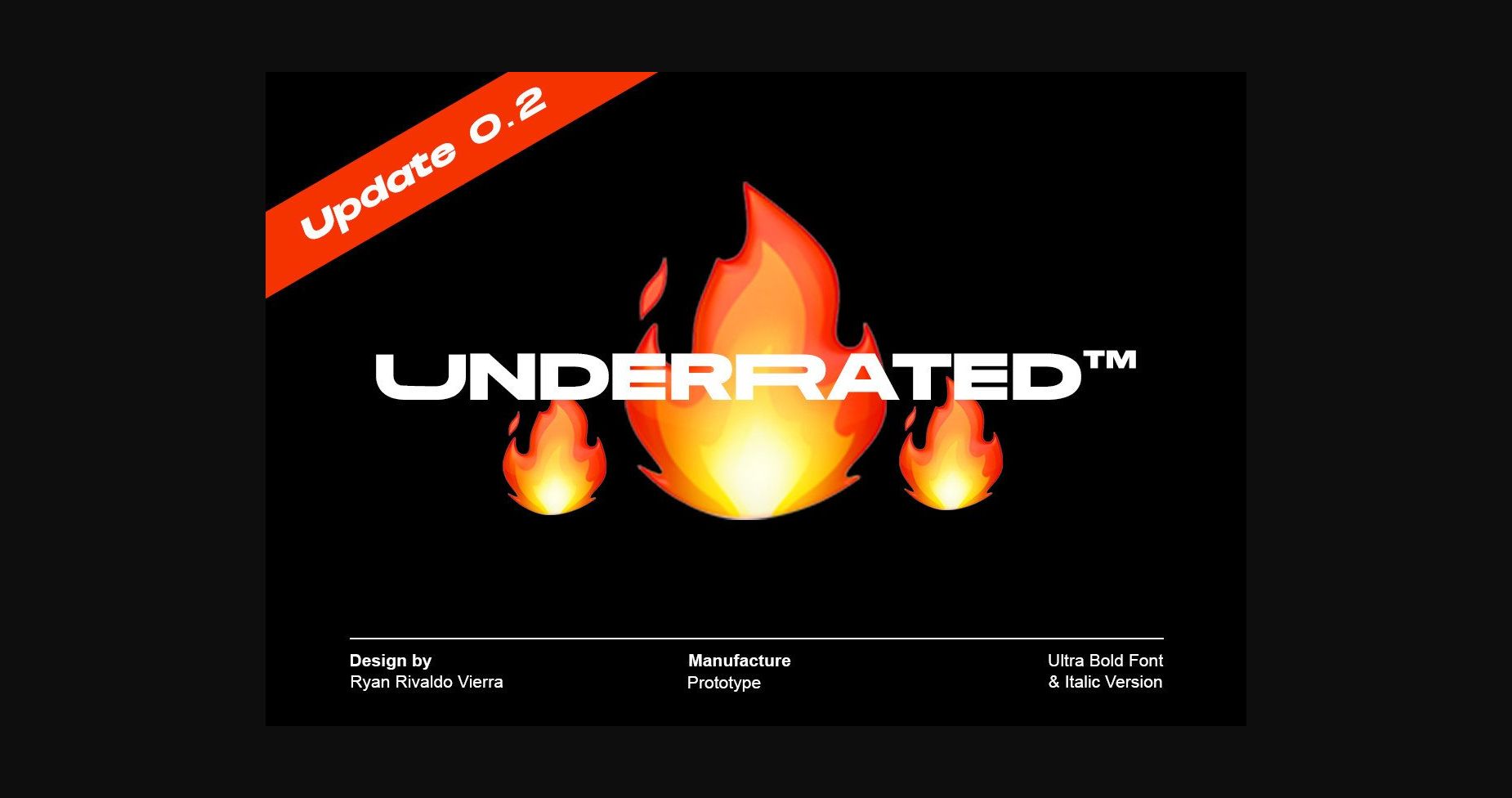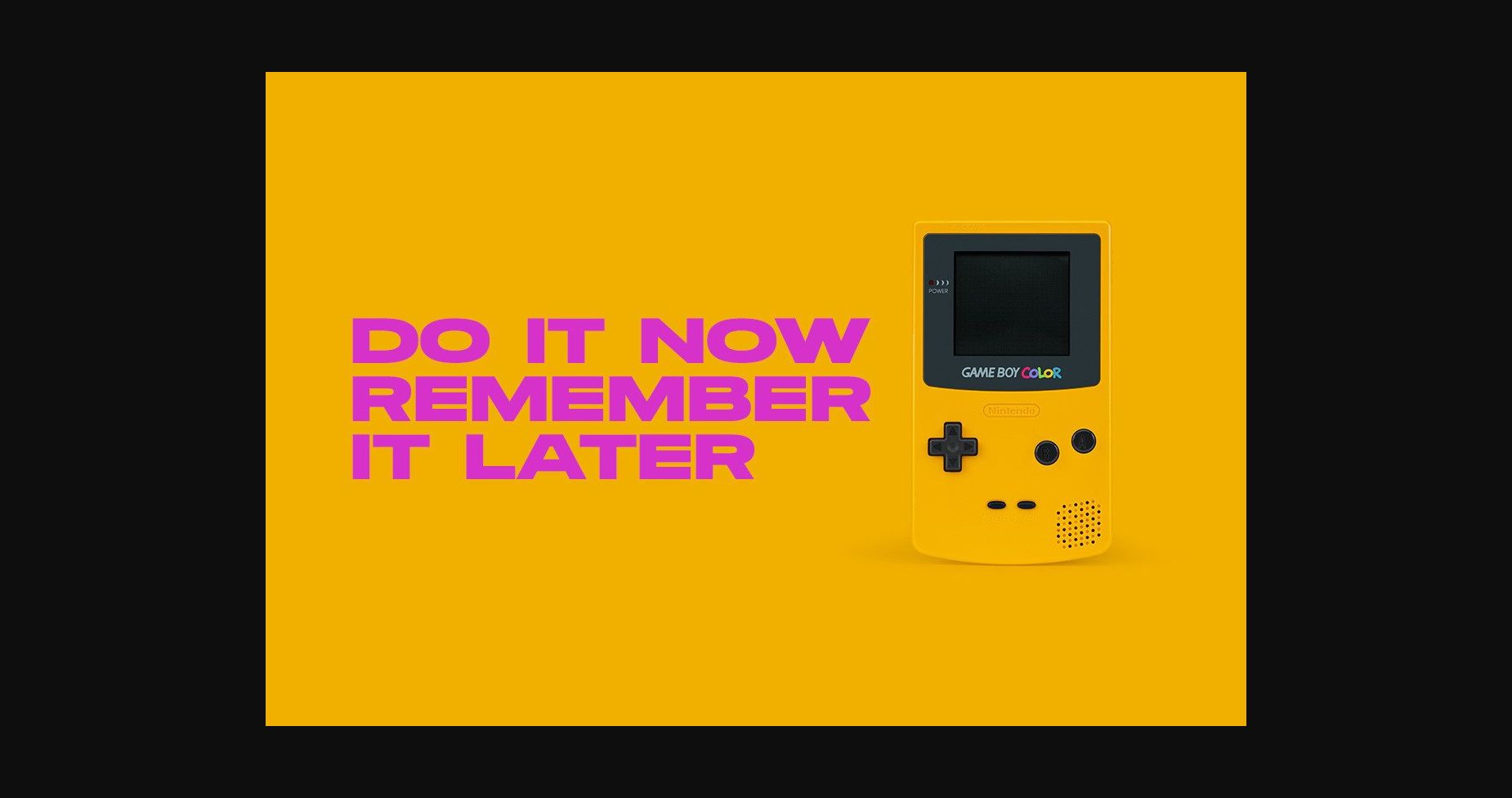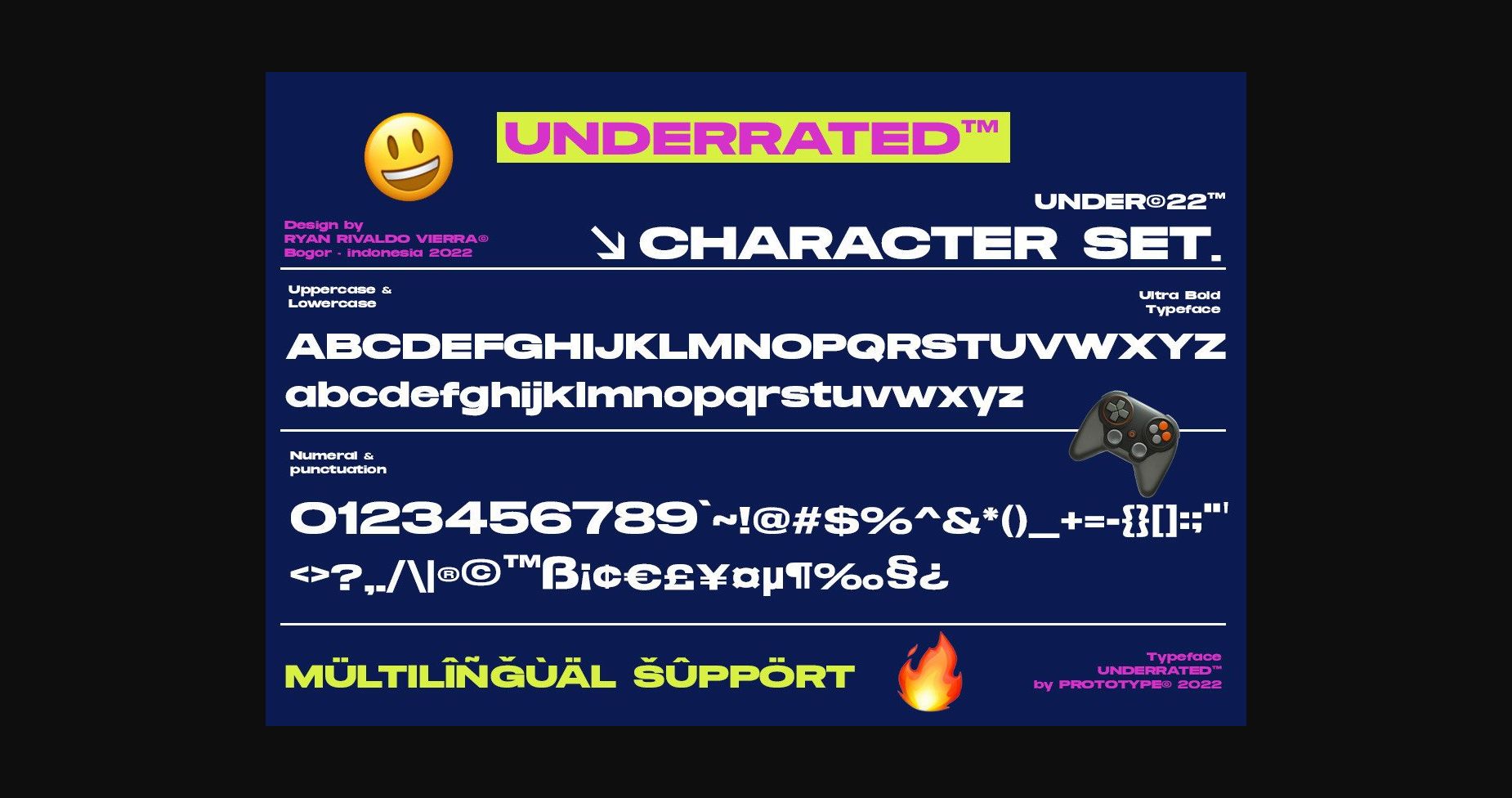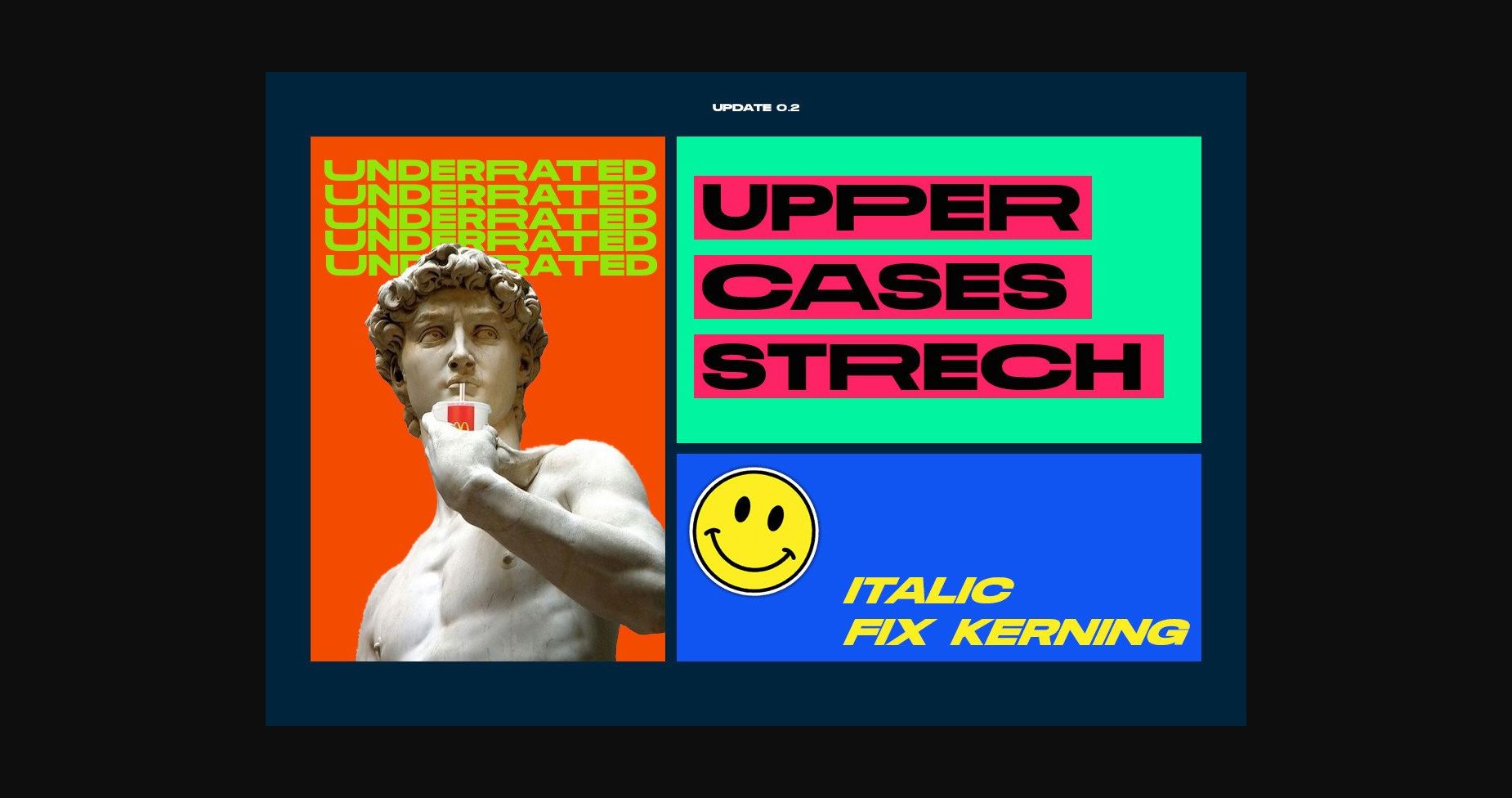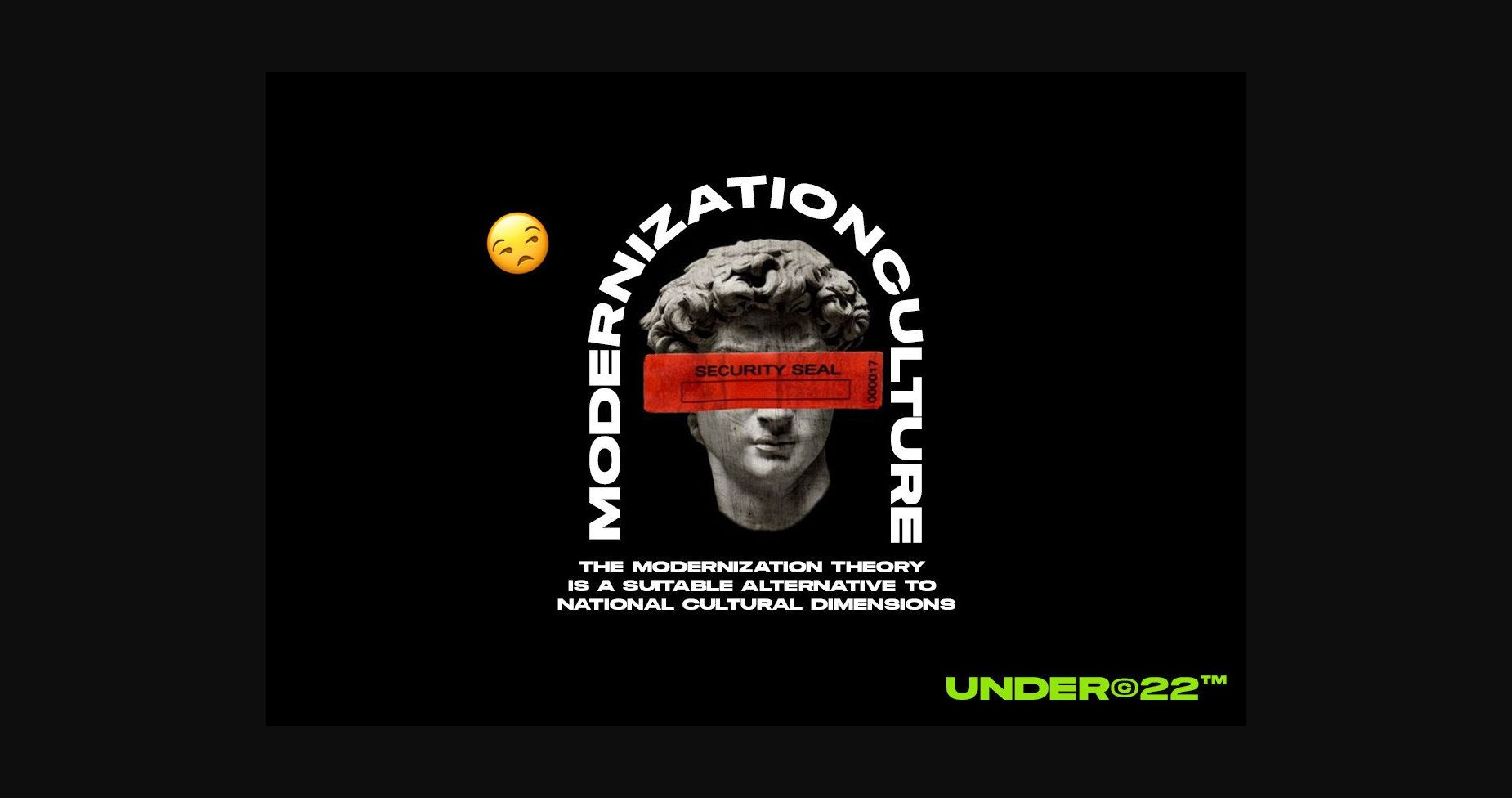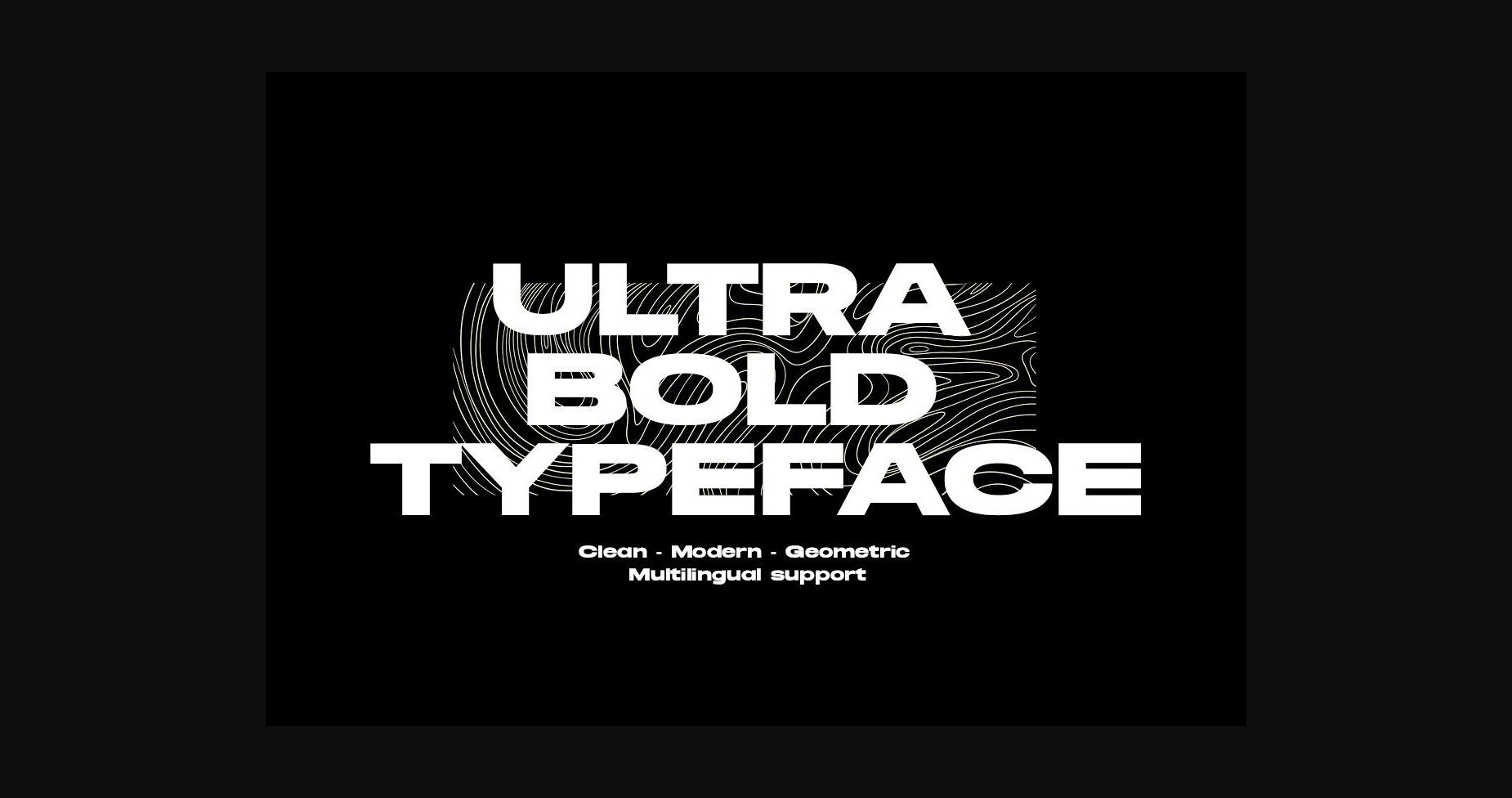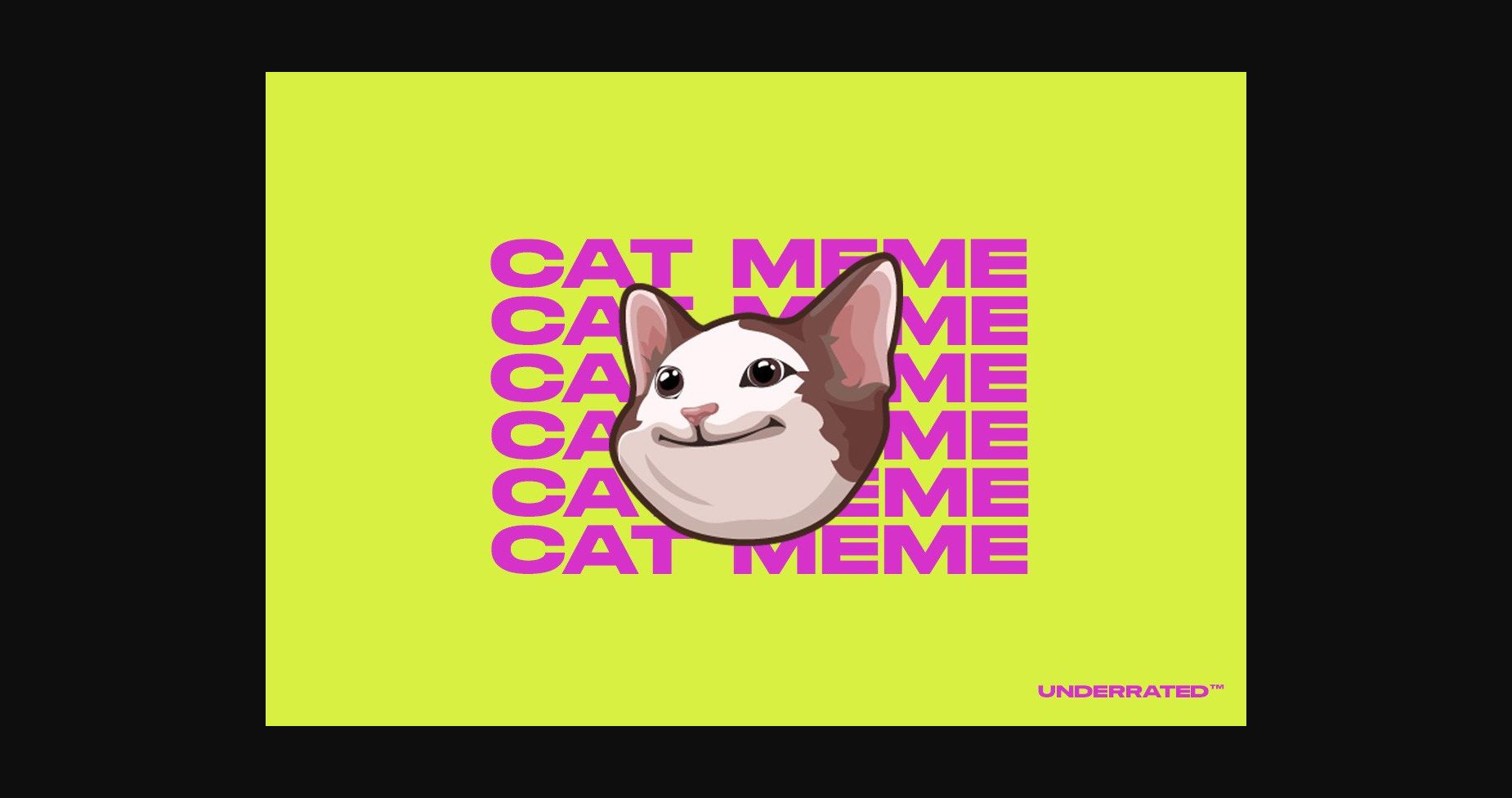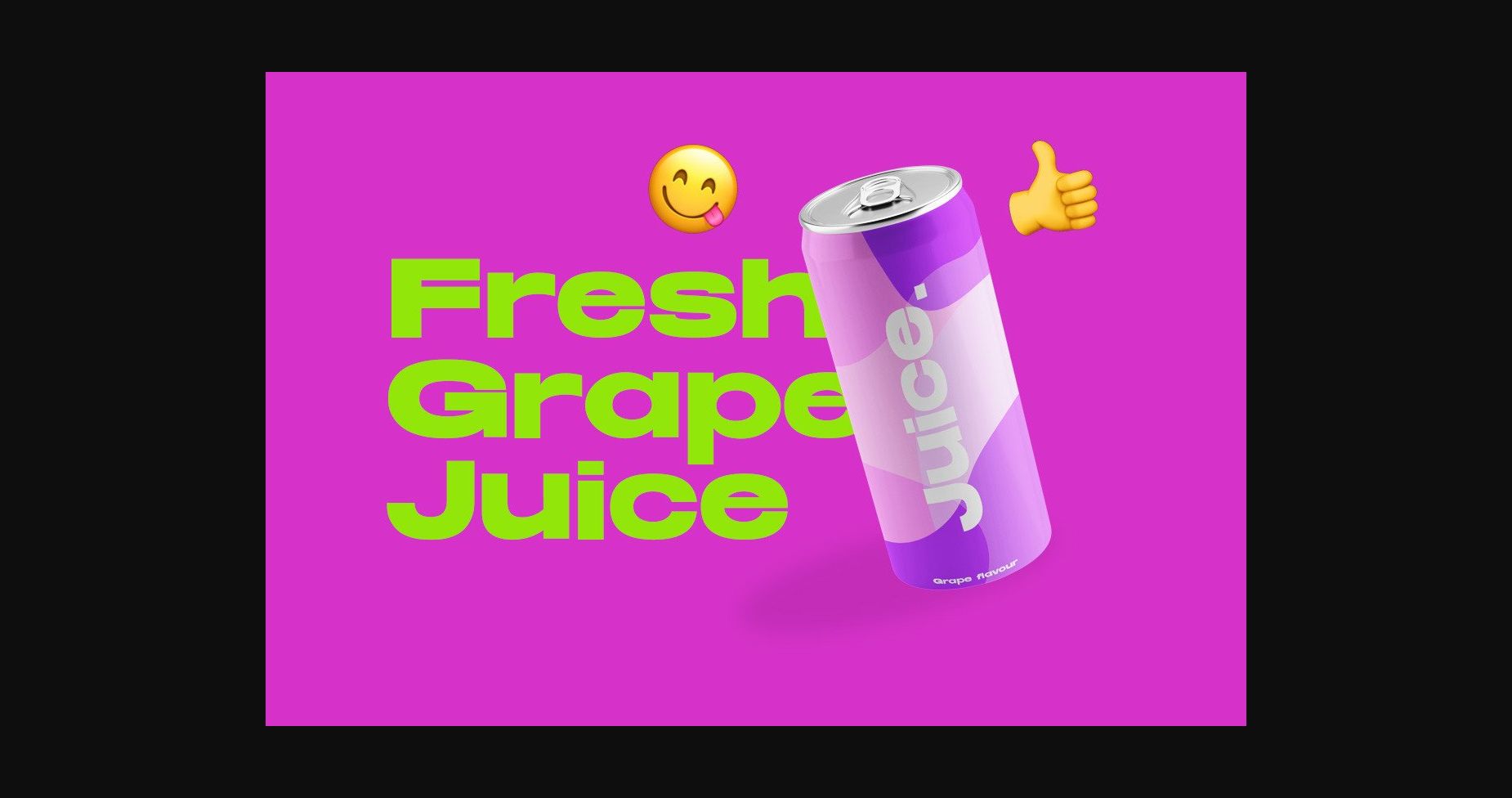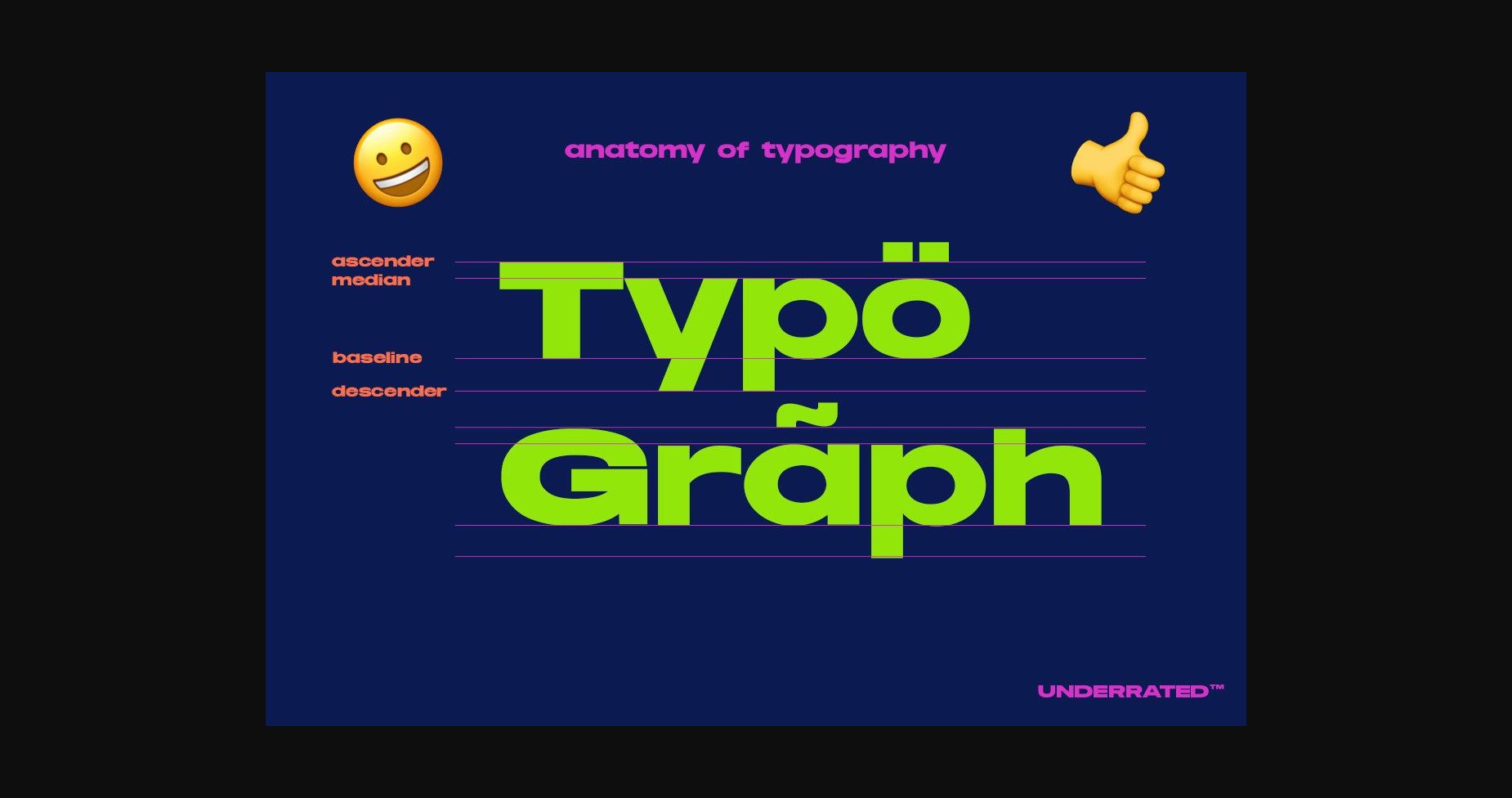
HomeSans Serif FontsUnderrated Font Sans Serif Fonts Underrated Font FacebookXPinterestWhatsApp 1 of 11 ... Underrated Font Poster 2... Underrated Font Poster 3... Underrated Font Poster 4... Underrated Font Poster 5... Underrated Font Poster 6... Underrated Font Poster 7... Underrated Font Poster 8... Underrated Font Poster 9... Underrated Font Poster 10... Underrated Font Poster 11... About Underrated Font Underrated is an ultra-bold, geometric, modern, and clean sans serif font. This typeface will enhance your craft with little effort, making your product stand out from the competition. DOWNLOAD NOW People also explored Antique Font Miracle Lathusia Font Gabriel Font Kithen Mellogia Font Mahogany Font Hometona Font Fetasy Font Sinta Bella Font Mojito Font 362 0 TagsUnderrated Font Previous articleQrosbi FontNext articleWord Milk Font LEAVE A REPLY Cancel reply Comment: Please enter your comment! Name:* Please enter your name here Email:* You have entered an incorrect email address! Please enter your email address here Website: Save my name, email, and website in this browser for the next time I comment. Personal Use Free Screengem Personal Use Free Read more about this font Meloche Book Personal Use Free Read more about this font Urkelian Personal Use Free Read more about this font Sushi Stroke Personal Use Free Read more about this font BLOG Free Fonts Risk: Why Free Fonts Can Be Dangerous for Designers Free Fonts Risk: Why Free Fonts Can Be Dangerous for Designers Using free fonts is a common practice in web and graphic design. However, the... How to Install and Use Fonts on Windows, macOS, and Web Projects Best Fonts for T-Shirt Design – Top 2025 Picks Best Fonts for YouTube Videos: Make Your Thumbnails Stand Out